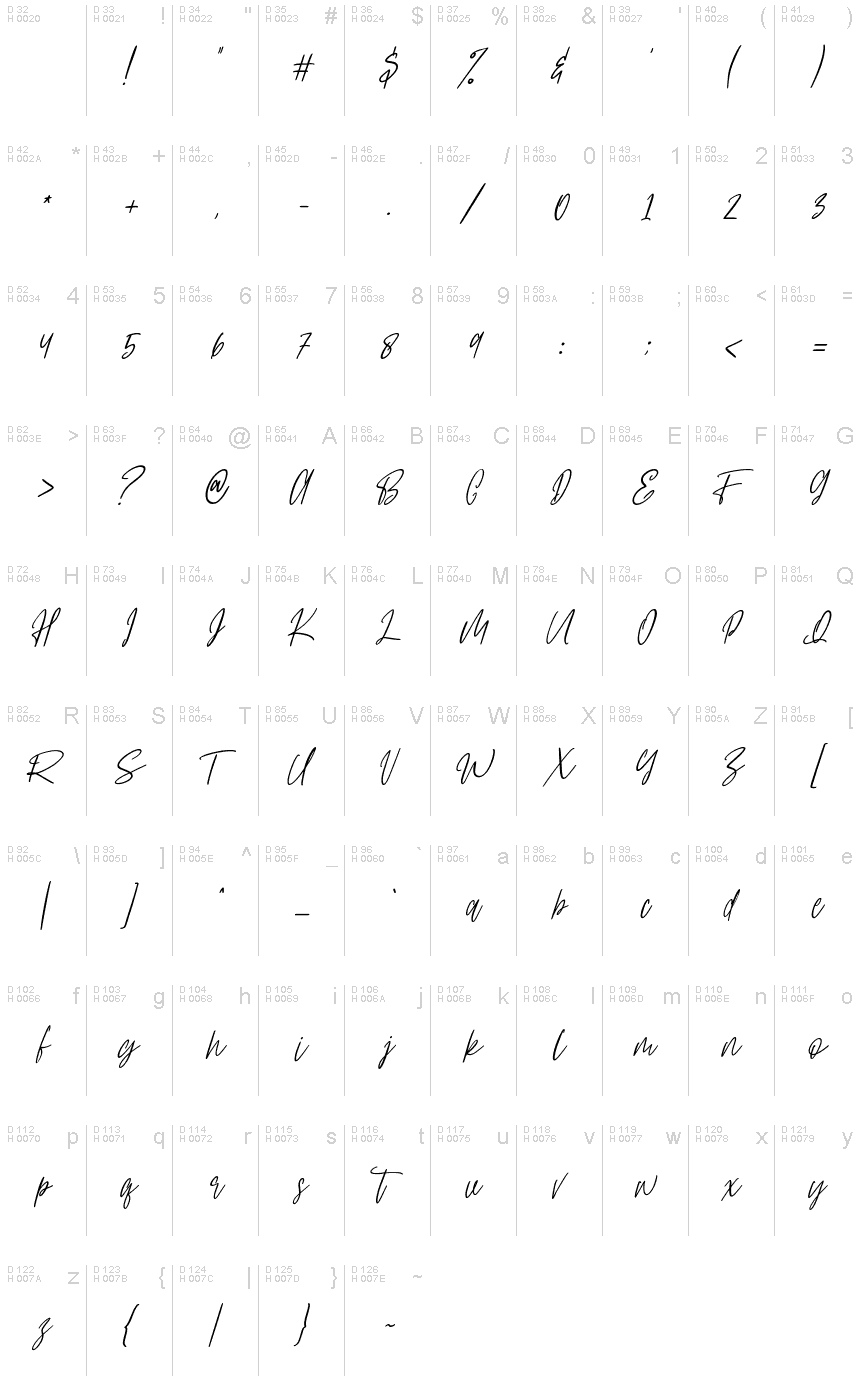
Taptalks
Taptalks is a narrow handwritten script font designed by Maulana Creative. It is perfect for projects needing a creative and stylish touch, such a invitations, logos, or greeting cards.